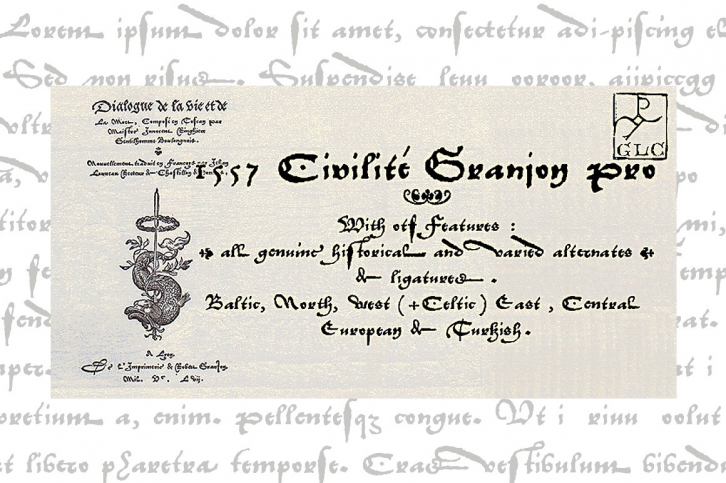
Living from 1545 in Lyon (France), the famous punchcutter Robert Granjon created a typeface looking like his own hand script. The first book printed with this font, in 1557, was probably "Dialogues de la vie et de la mort" (by Innocent Ringhier). This is this complete typeface we are proposing here. It is a charming font with historical forms (s long, s final and others) and many ligatures, enriched with accented letters and other characters not existing in the original (Thorn, eth, lslash...), and a lot of alternates who permit a rich and varying typography. Warning : all characters appears with the 1500's manual blackletter old style, especially letters "e" "r" or "h" alternate and some ending forms, and may be seem to be difficult to read for the first time, but quickly, it shall be very easy. The font is containing all characters for Baltic, Western (Including Celtic), Eastern, Northern language and Turkish.